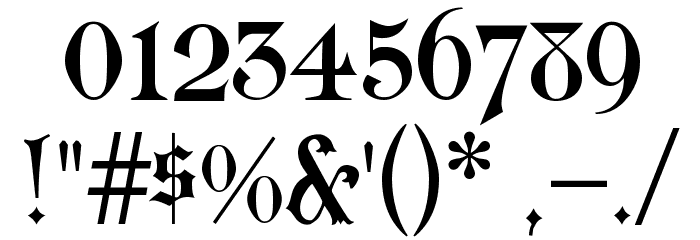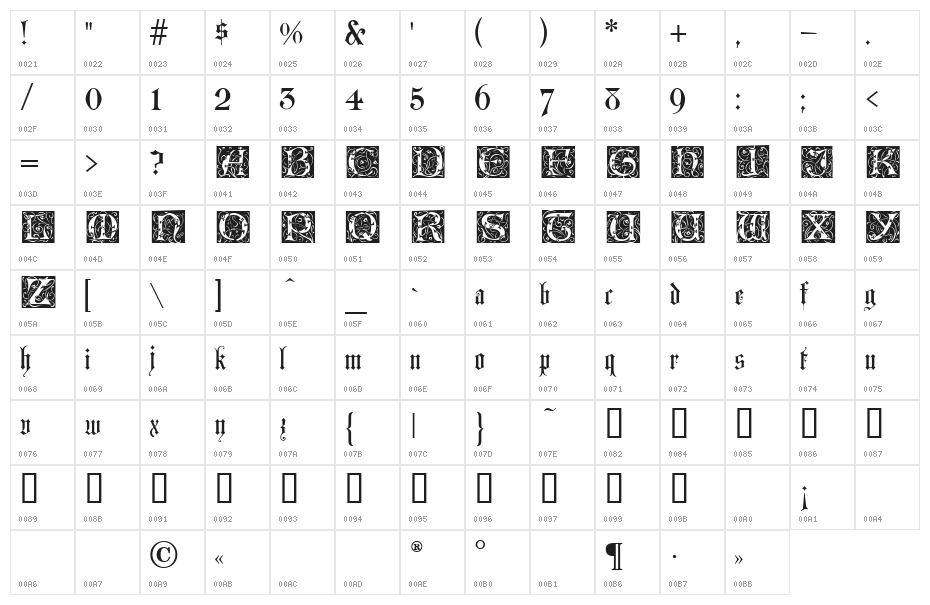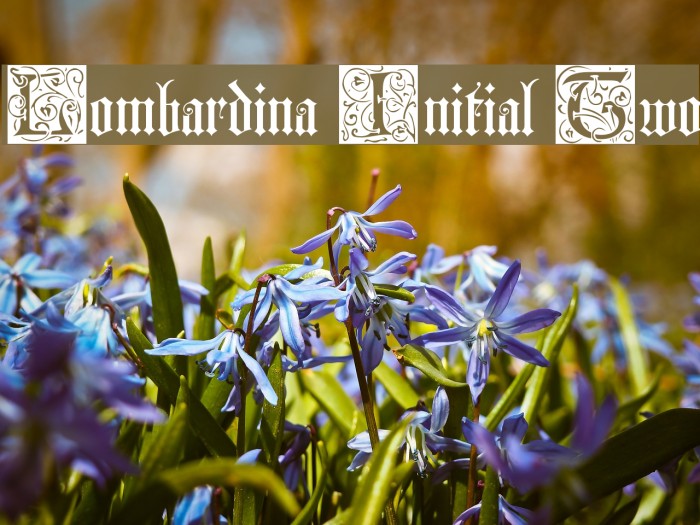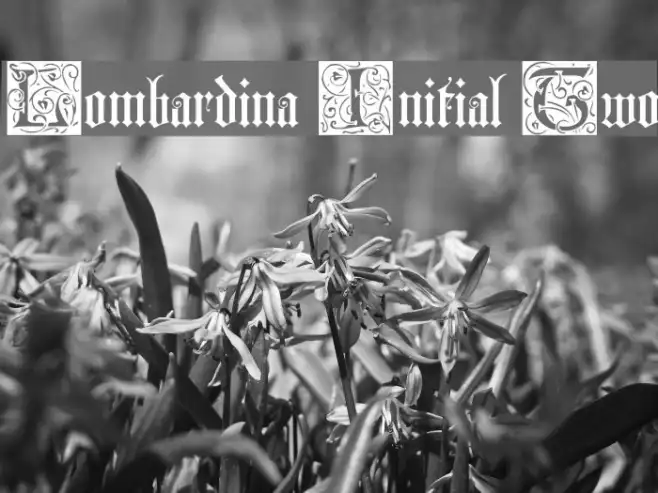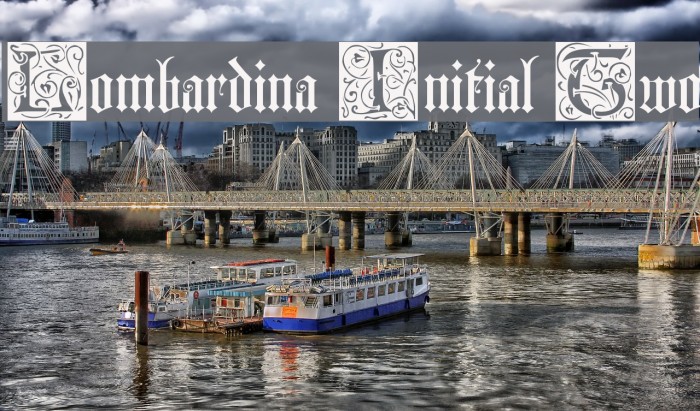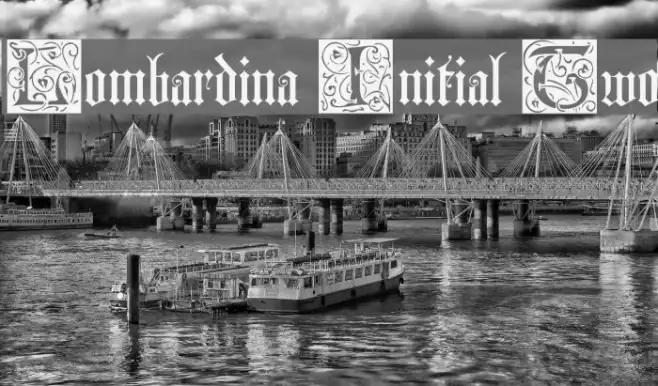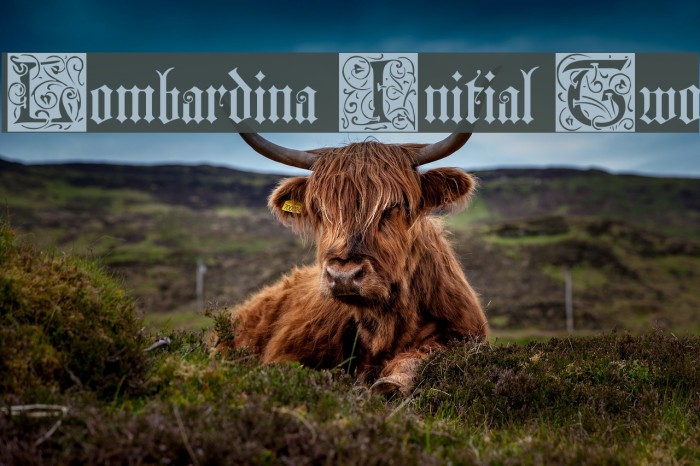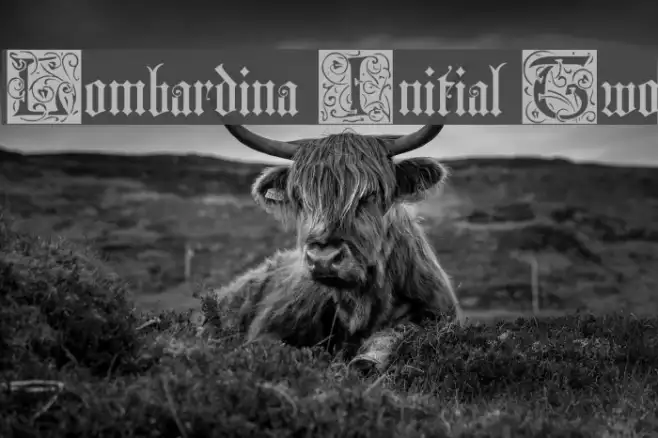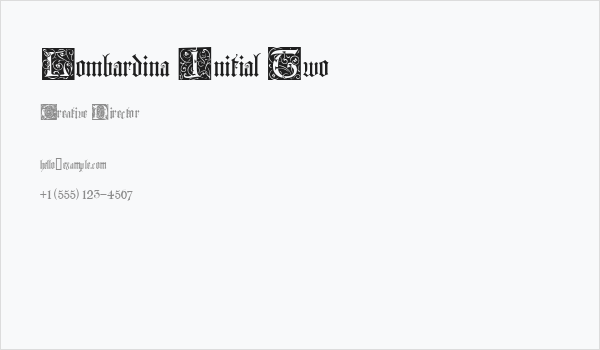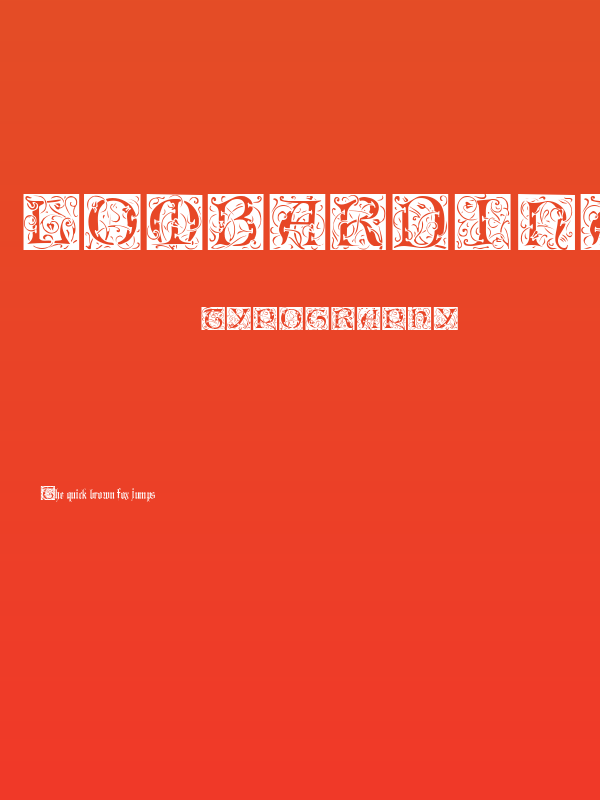
Lombardina Initial Two Font
Lombardina Initial Two Description
This font features a highly decorative and intricate design, particularly evident in the uppercase letters, which are enclosed in ornate boxes filled with floral and vine-like patterns. The lowercase letters exhibit a traditional blackletter style, characterized by sharp, angular lines and dramatic flourishes. The numerals and special characters maintain a bold presence with a slight gothic influence, offering a cohesive look with the rest of the typeface. The overall aesthetic is reminiscent of medieval manuscripts, combining elegance with a touch of historical charm.
| Proposed Projects | Ideal for historical-themed projects, book covers, invitations, or branding that requires a touch of elegance and tradition. |